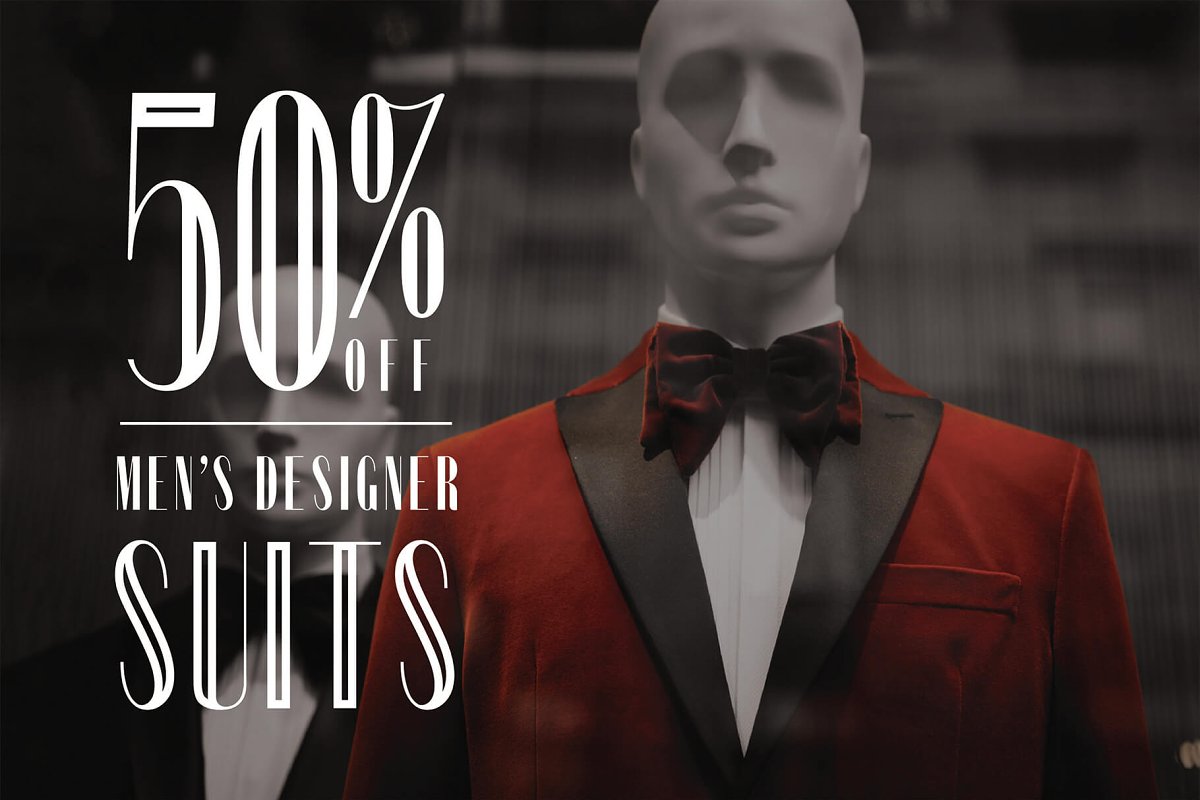
About the Portia Film Noir Inspired Font
P O R T I APortia is a tall contemporary typeface inspired by the film noir genre, It is a versatile, easy-to-use font and a great addition to any font collection, It is best used for branding, print design, title headings & so much more, Download it now!Here’s what you will getA well crafted tall sans serif typeface, Uppercase CharactersFour Styles to choose fromNumerals & PunctuationAll typefaces come in OTF format